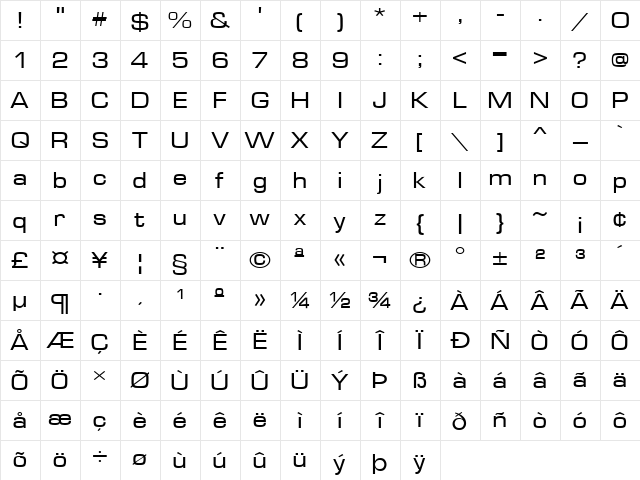
Waukegan LDO Regular
| Foundry | LDO Fonts |
| Designer | Luke Owens |
Design Context for Waukegan LDO Typeface
Waukegan LDO takes a measured approach to typography — its balanced proportions and neutral character make it a reliable workhorse for both digital and print work.